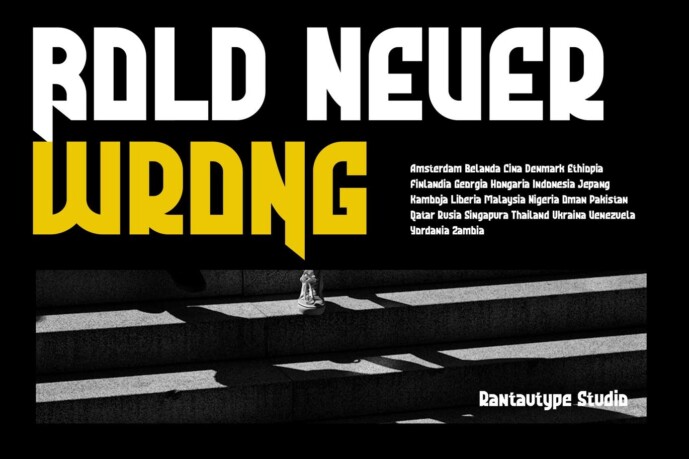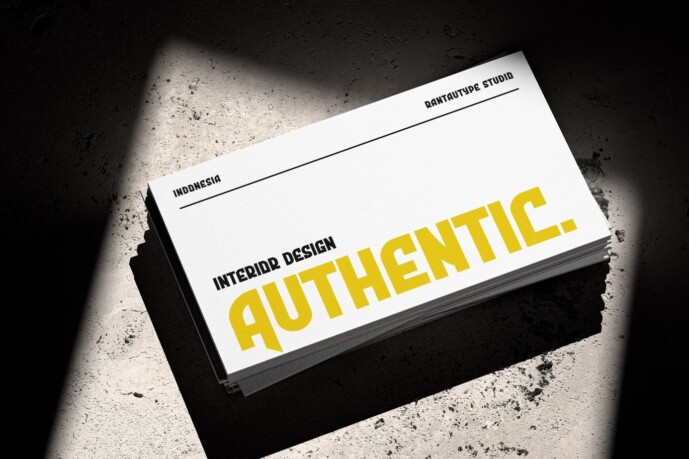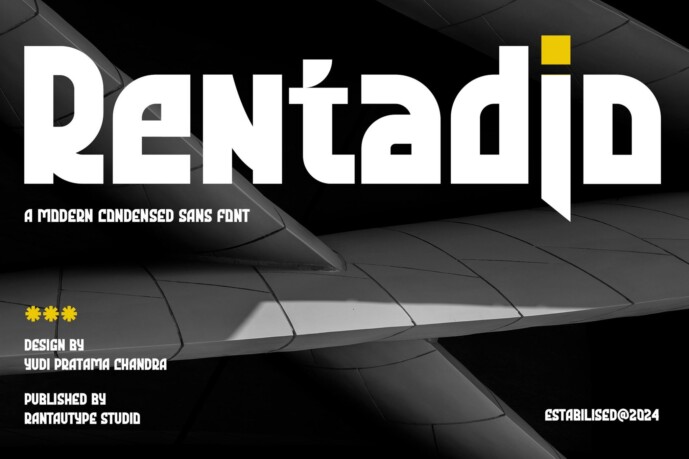
Rentadio Font
Rentadio Font is a modern condensed sans serif font with a strong geometric shape. Rentadio is a perfect choice for any creative, chic and lifestyle design such as logotype, advertisements, watermark on photography, stationery, branding project, display and magazine, invitation, corporate branding, product design, label, commercial project and many others.